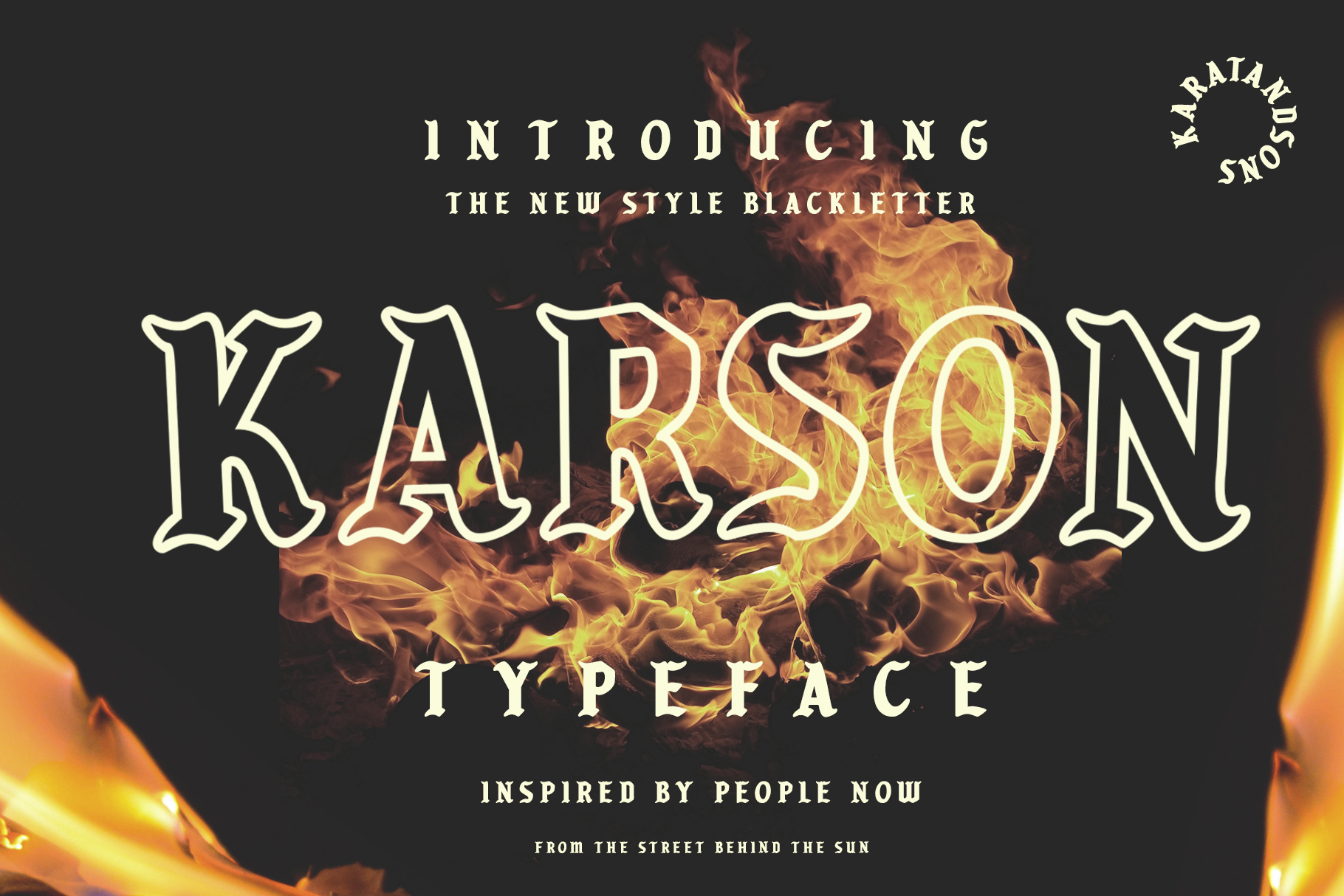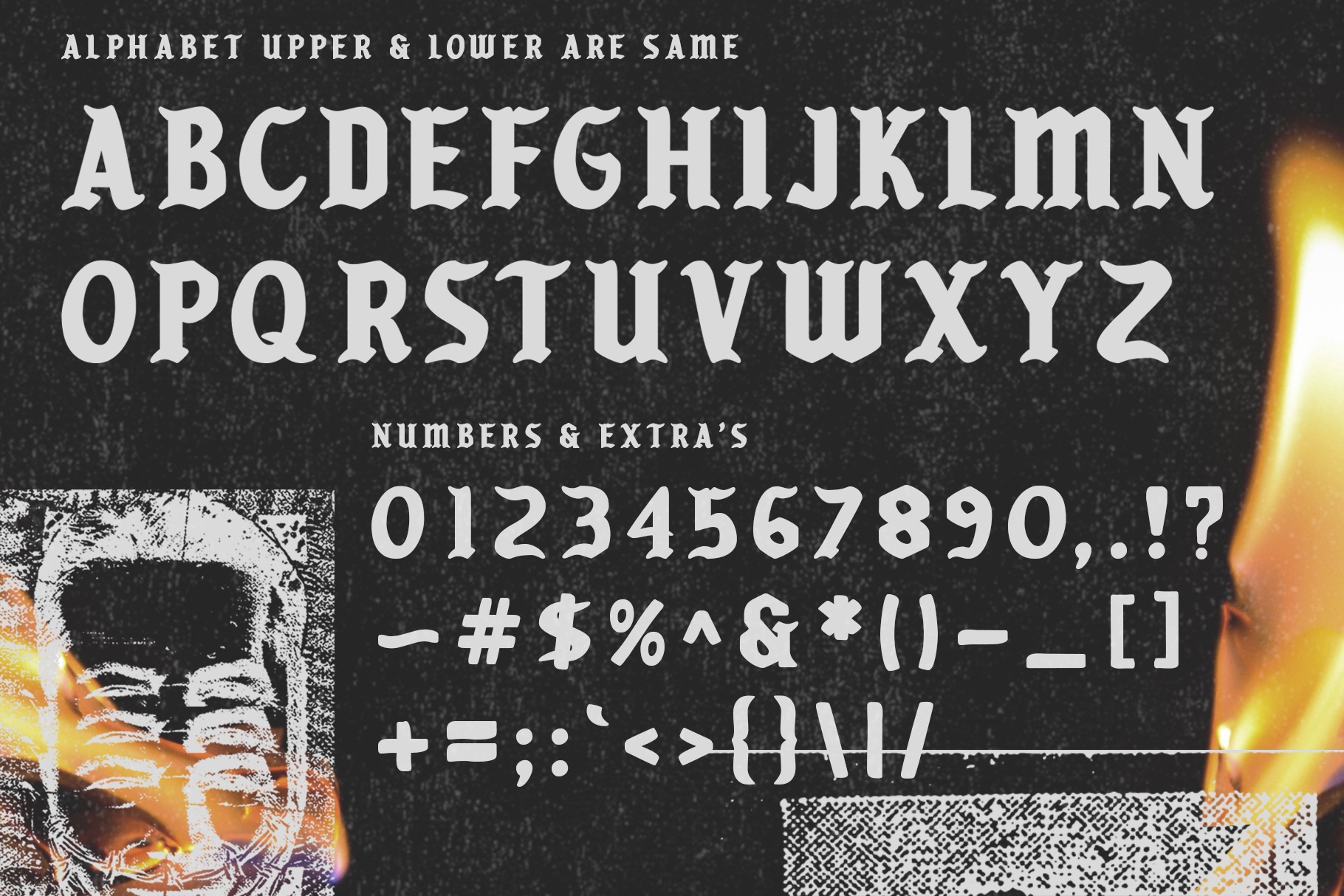
Karson is a stunning blackletter font, inspired by the people in the shadows of society. This font comes in multiple styles so you can use it in a wide range of project types. This is a great font for streetwear and vintage project styles.